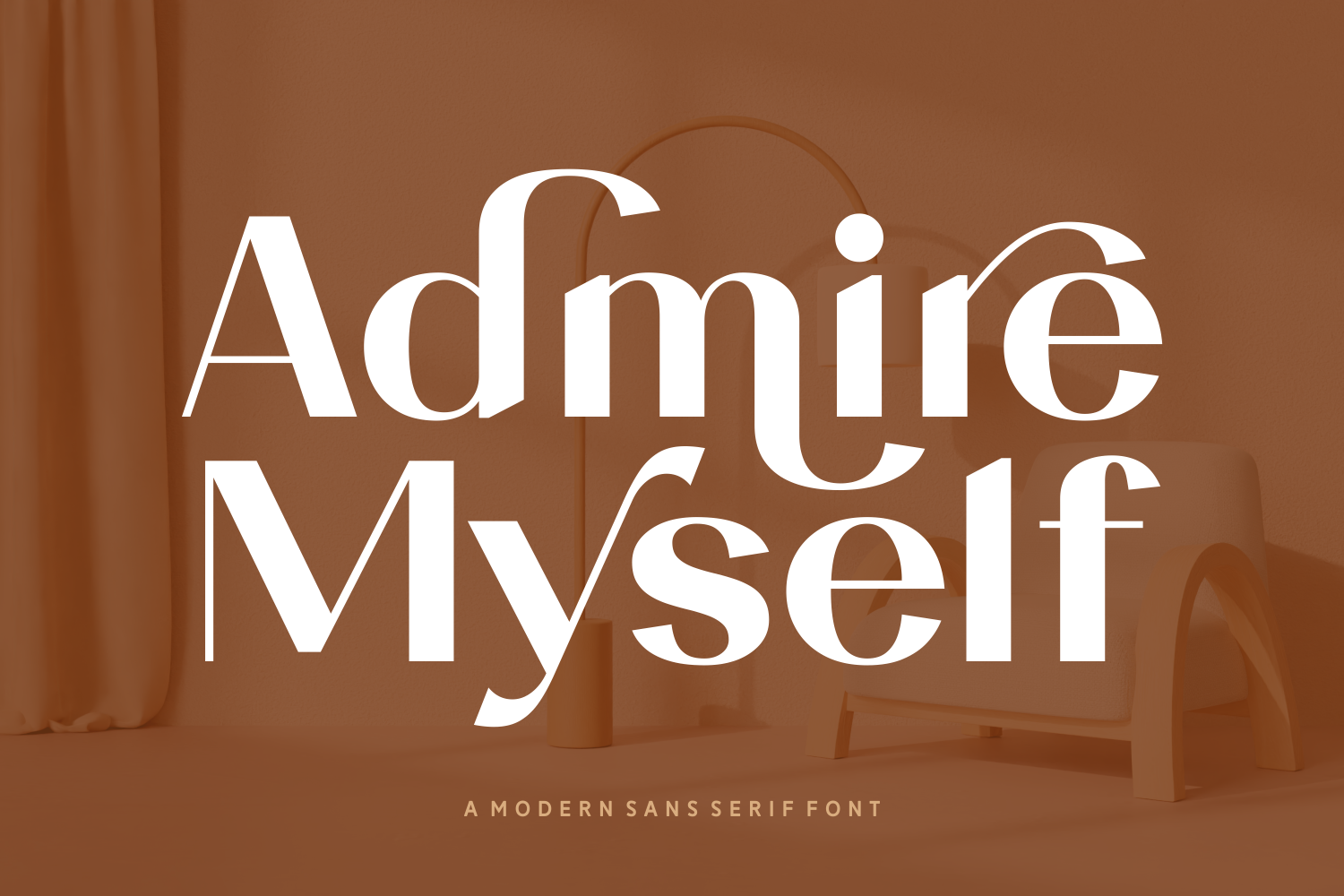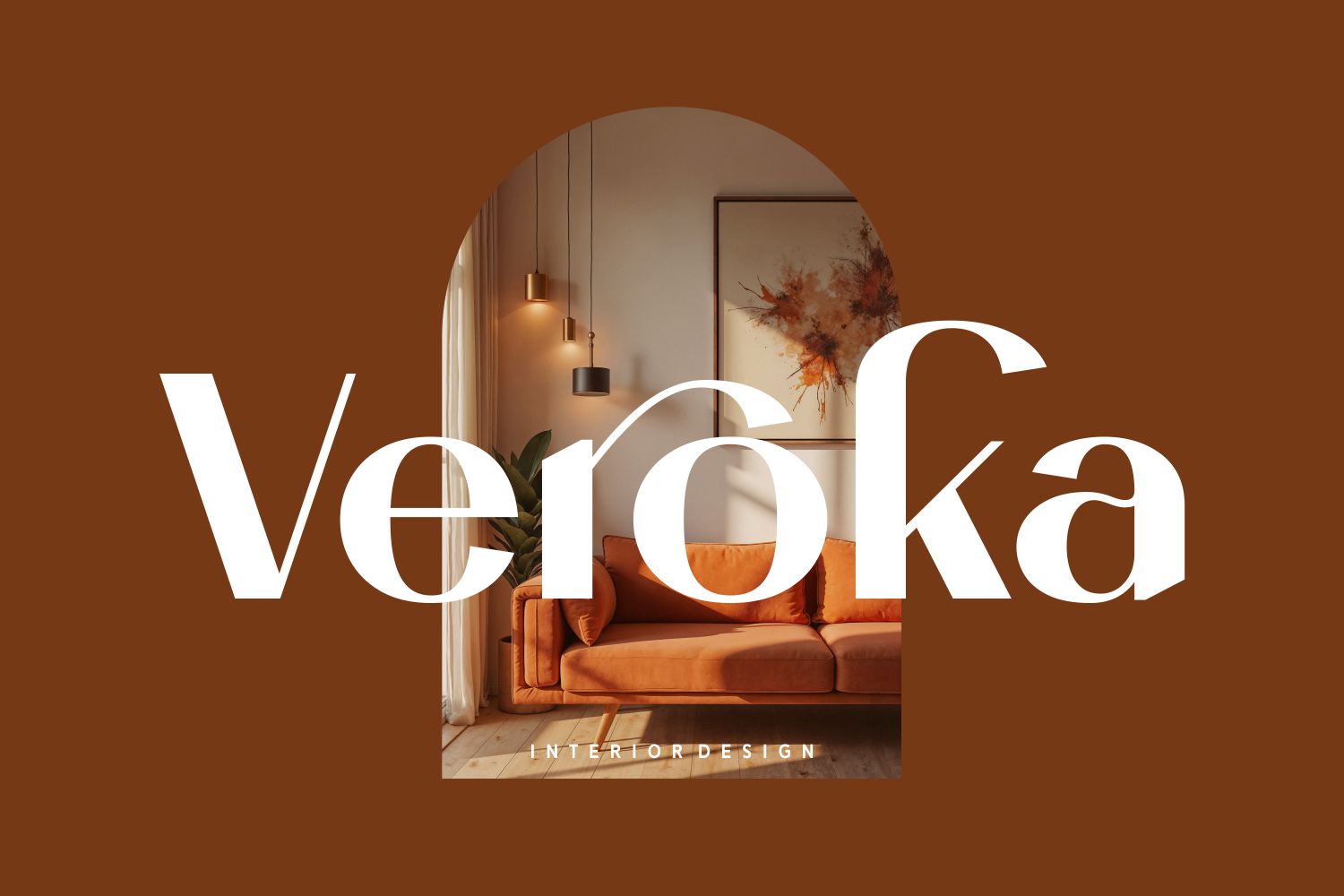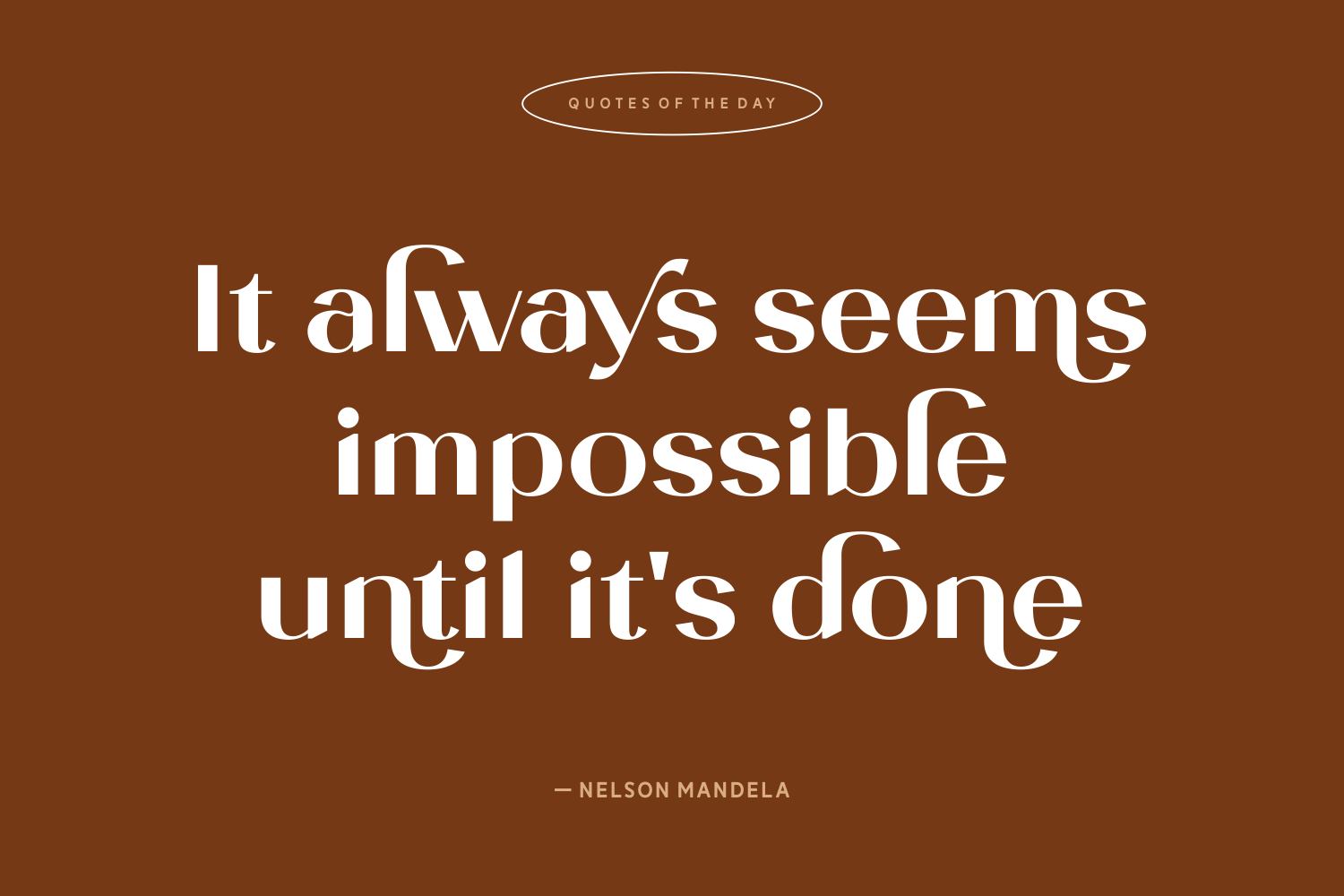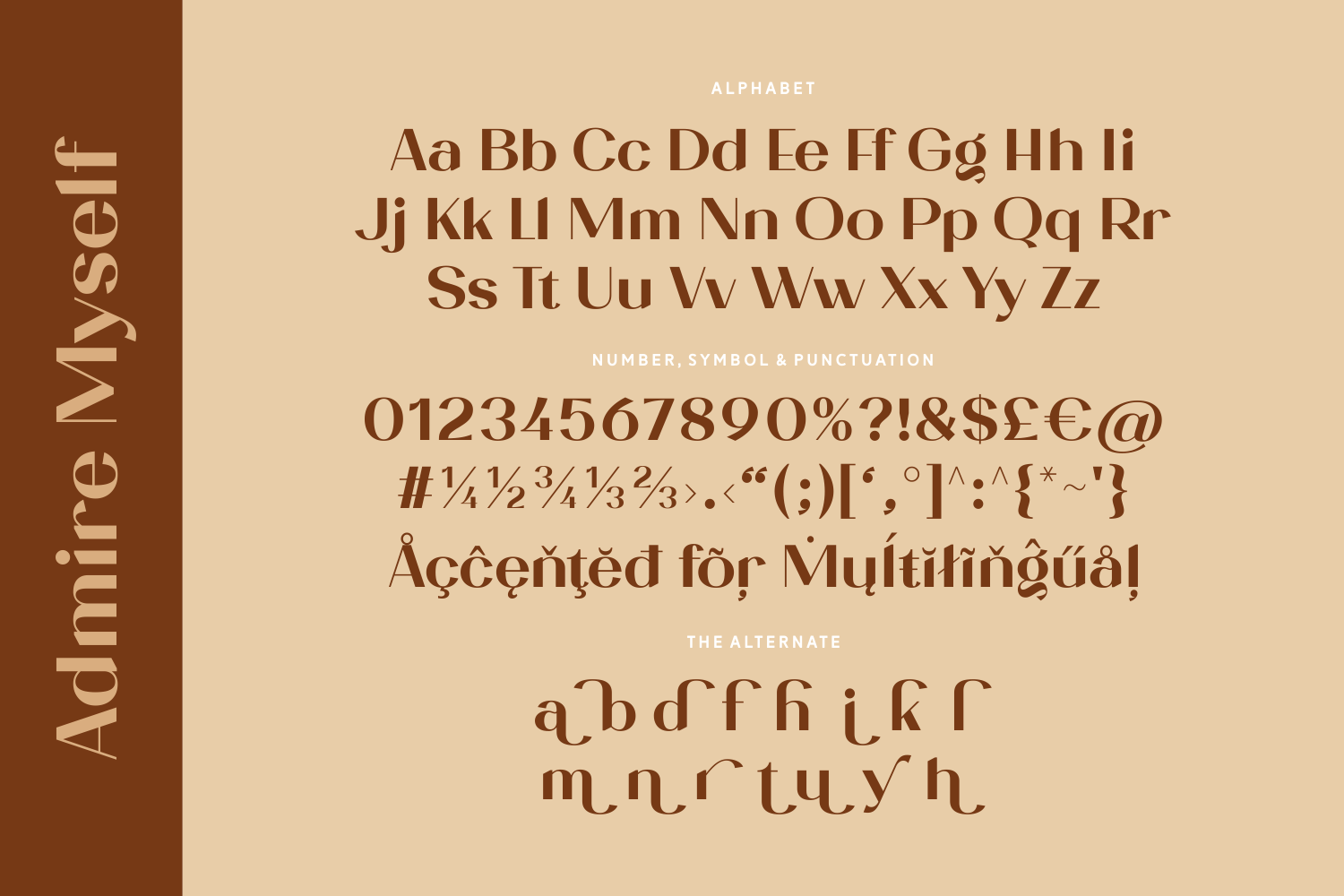
Admire Myself is a bold modern sans serif font with high contrast and expressive letterforms. It features striking alternates and elegant strokes that bring a touch of flair to any design. Ideal for headlines, personal branding, lifestyle blogs, and magazine layouts.